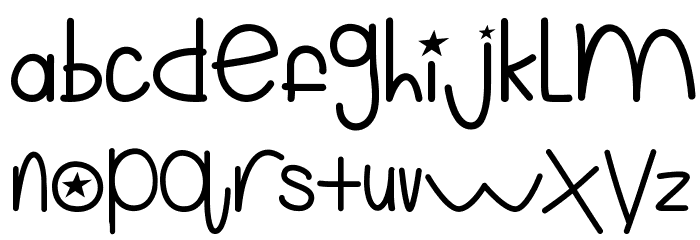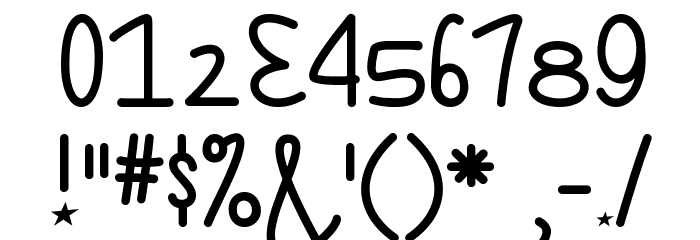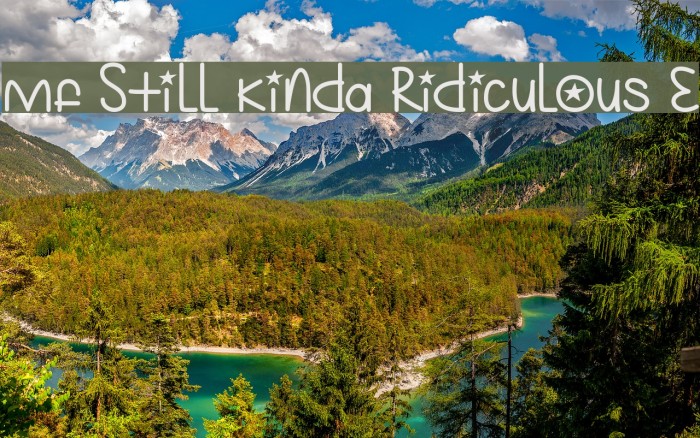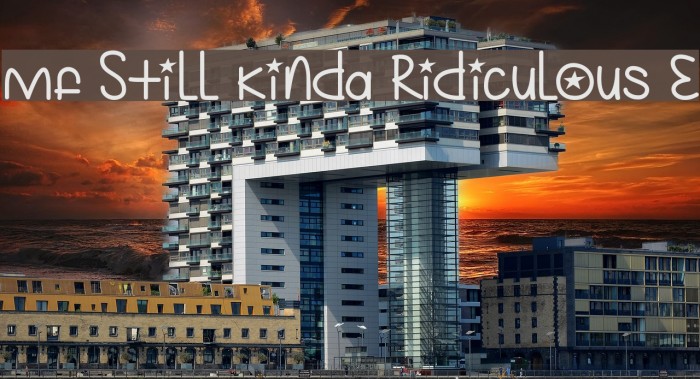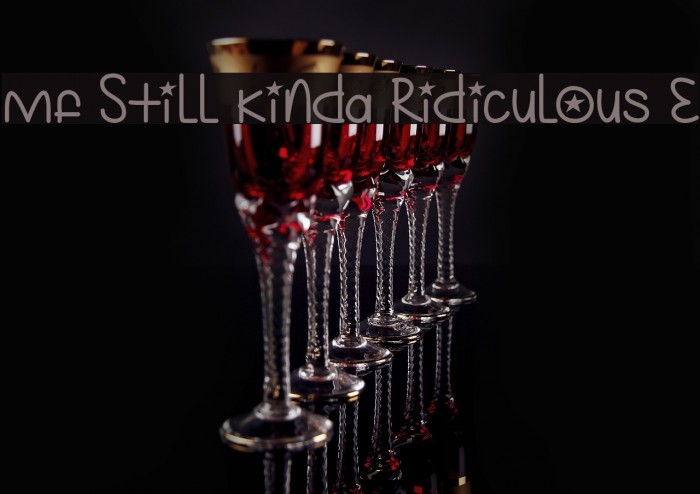
Mf Still Kinda Ridiculous 3 Font
This playful and whimsical font features a handwritten style with a casual and informal appearance. The characters are slightly irregular, adding to the font's charm and personality. Uppercase letters are bold and rounded, while lowercase letters maintain a consistent flow with unique embellishments, such as stars within certain characters. The numbers are quirky and match the overall style, making them suitable for creative projects. Special characters are included, maintaining the font's fun and lively aesthetic. This font is perfect for projects that require a touch of humor and creativity.
A playful, handwritten font with a whimsical and informal style.
- Proposed Projects: Ideal for children's books, greeting cards, playful branding, and creative posters.